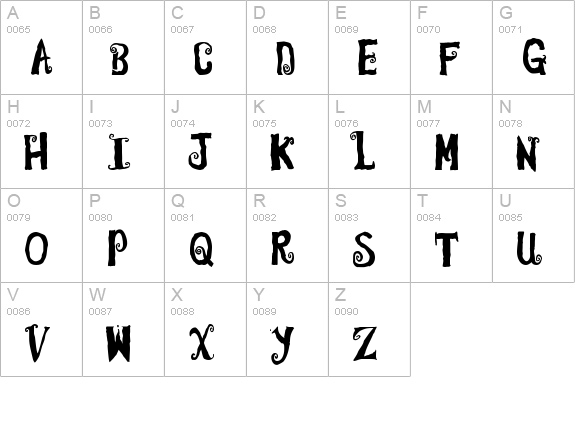
Hey Its Red font is a vibrant and eye-catching typeface that exudes energy and creativity. With its bold and playful design, this font is perfect for making a statement in your designs. Whether you're creating posters, logos, or social media graphics, Hey Its Red font will add a pop of color and personality. The best part? Hey Its Red font is completely free to download at FontsMarket.com. Yes, you read that right - you can get your hands on this unique and striking font without spending a dime. So why wait? Head over to FontsMarket.com today and elevate your designs with the Hey Its Red font.